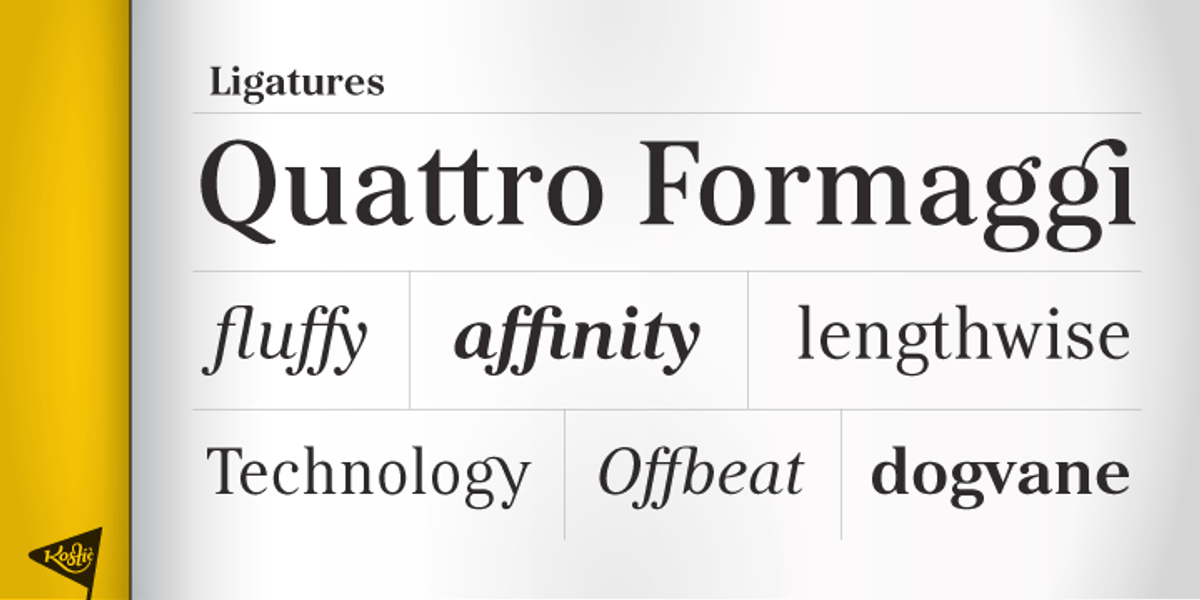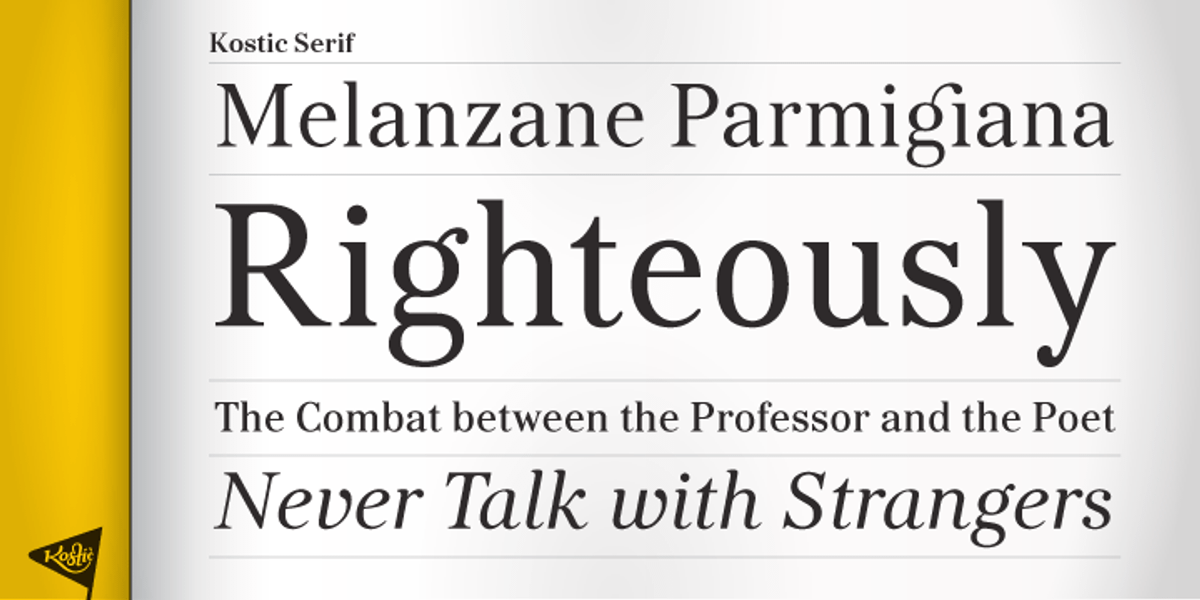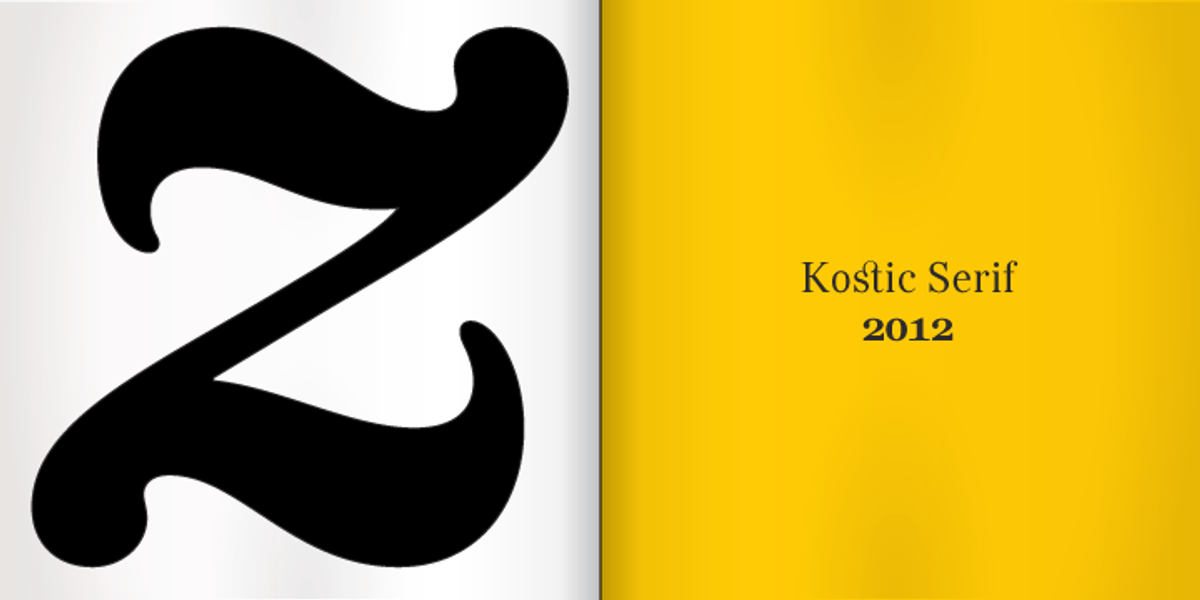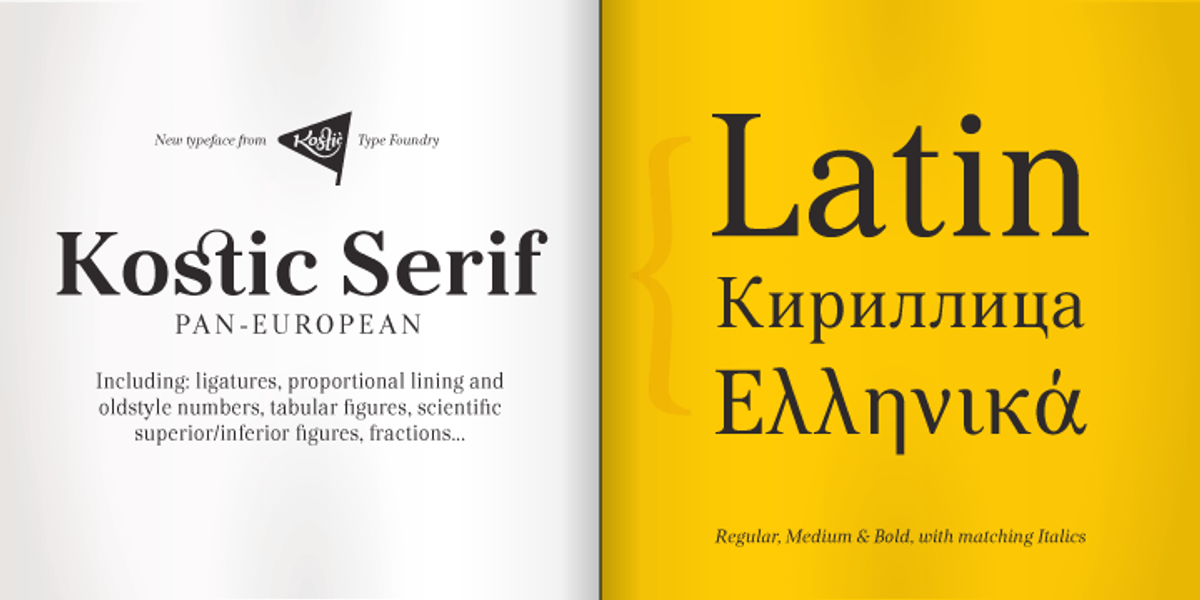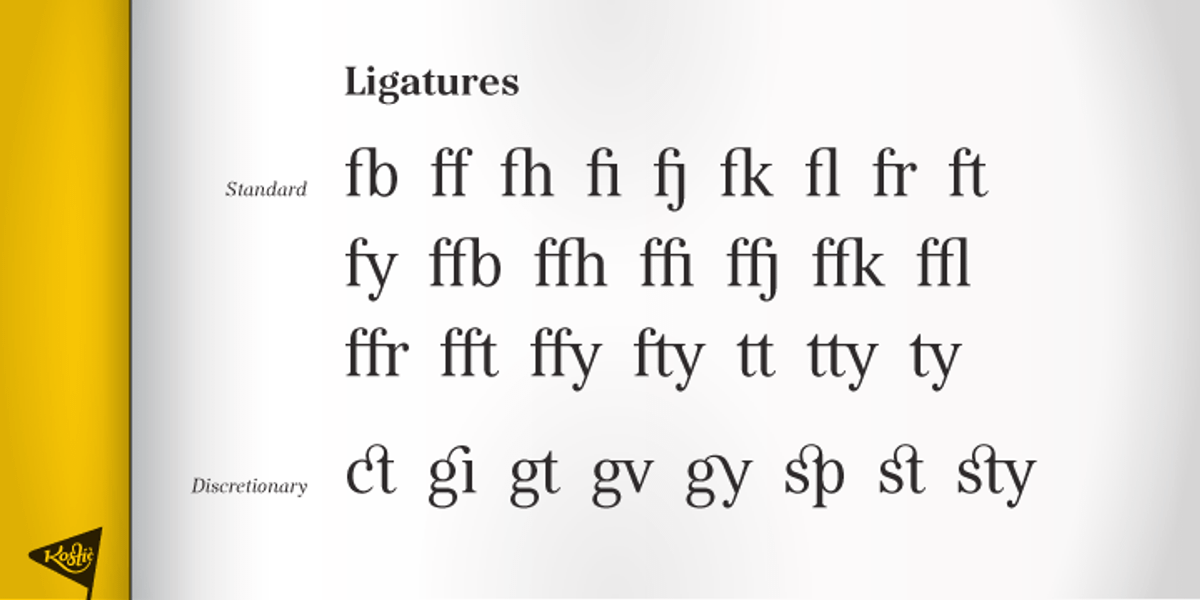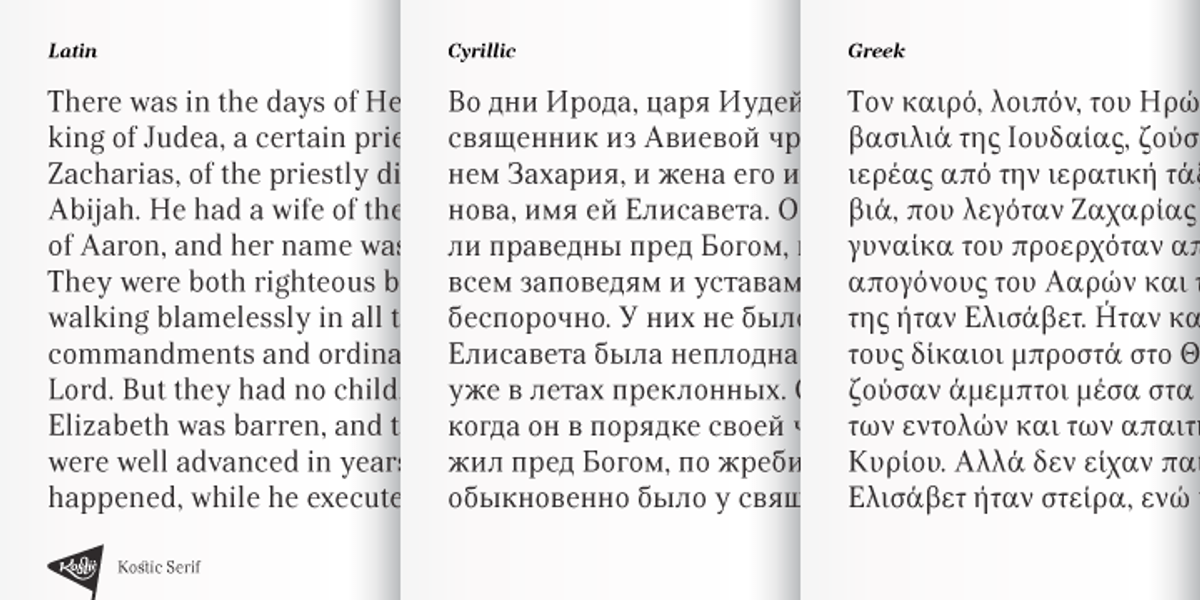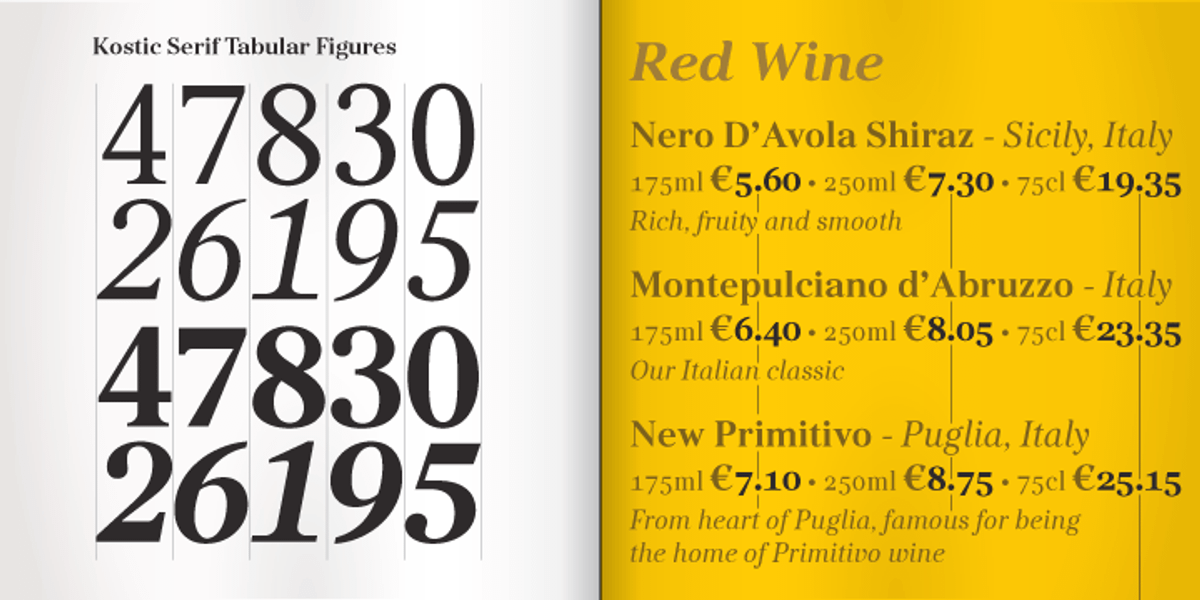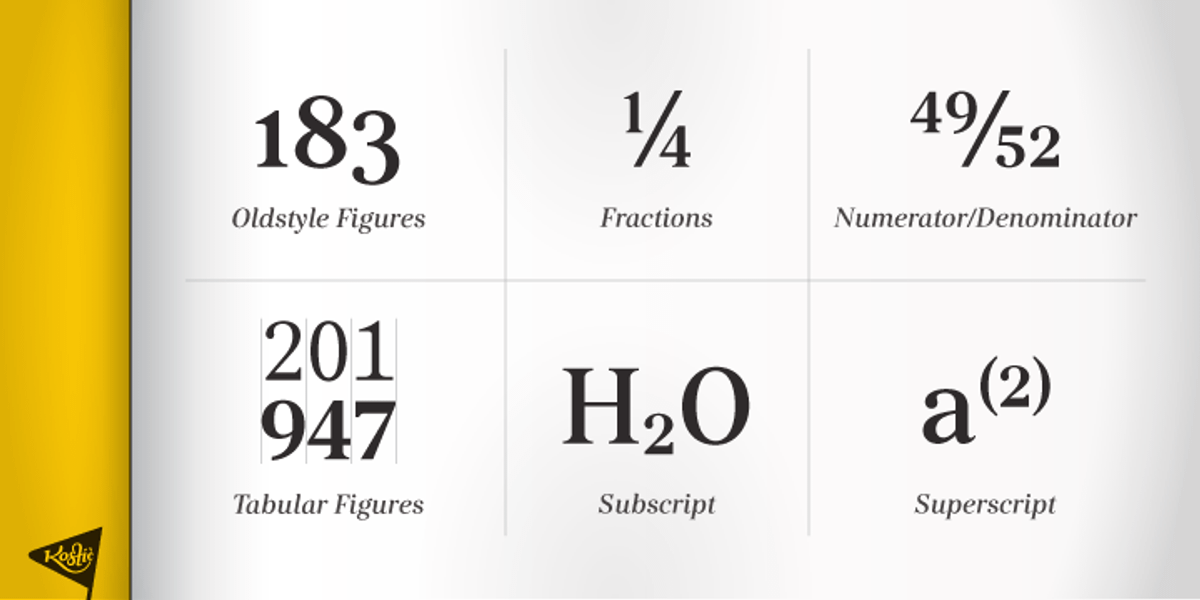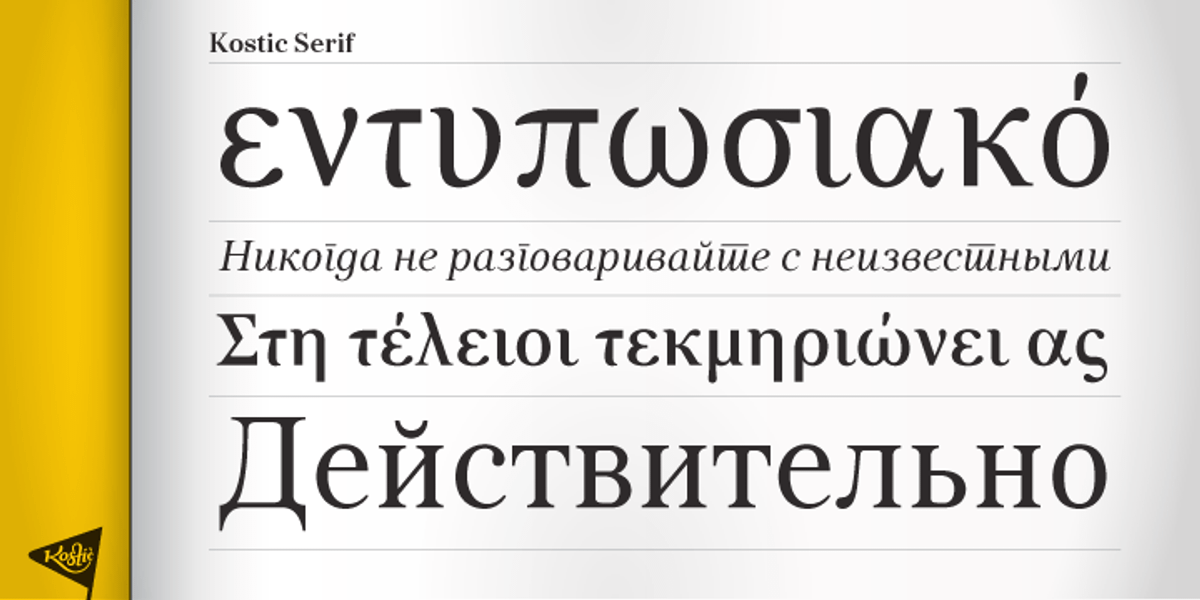
Kostic Serif
Kosic Serif is a classic transitional serif typeface reminiscent of fonts like Baskerville, Bookman, and Caslon. It features tall, clean characters and boasts an extensive glyph set that supports European languages including Greek and Cyrillic scripts. The font excels in setting multiple pages of text due to its legible design at smaller sizes. Kosic Serif also includes a variety of OpenType features, such as proportional lining and oldstyle figures, tabular figures, superscripts and subscripts, fractions, and ligatures.